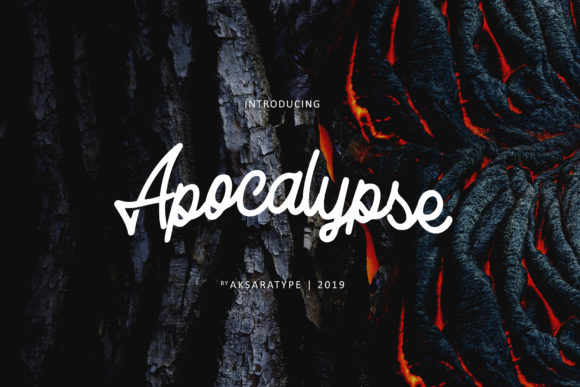
Step into a world of captivating expressions with Apocalypse Font - a bold and striking handwritten font from Imoodev, designed to ignite your creativity and make a statement in your designs. Experience the raw power of this script font, meticulously crafted to evoke emotion and add a touch of distinction to your projects.
Unleash the energy within your words as Apocalypse Font dances across the page, capturing attention with its strong personality. This font is not for the faint of heart - it demands to be seen and felt. Whether you're a designer, a blogger, or simply someone with a passion for expressing yourself through words, Apocalypse Font is your key to unlocking a new level of visual impact.
With Apocalypse Font, you'll discover:
* A font that radiates confidence and charisma, perfect for making a lasting impression.
* An array of carefully designed characters that work together seamlessly, creating a unified and cohesive look.
* Endless Möglichkeiten to express yourself, from powerful headlines to captivating social media posts.
Join the creative revolution and embrace the power of Apocalypse Font. Let your words command attention, stir emotions, and leave an unforgettable mark on your audience.